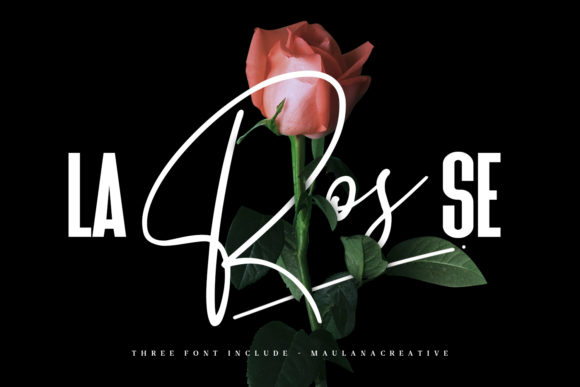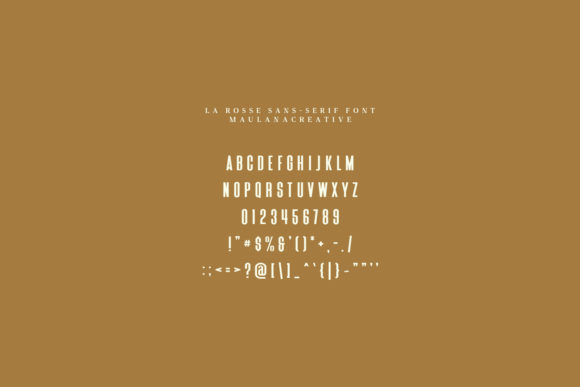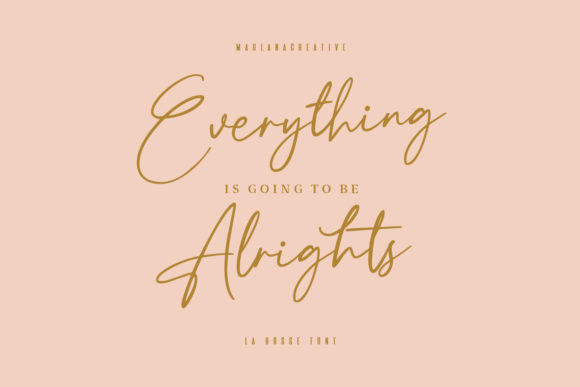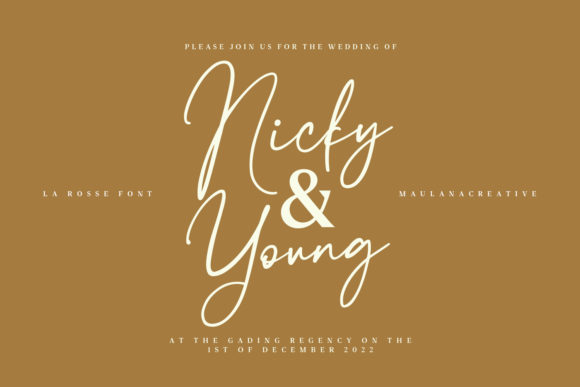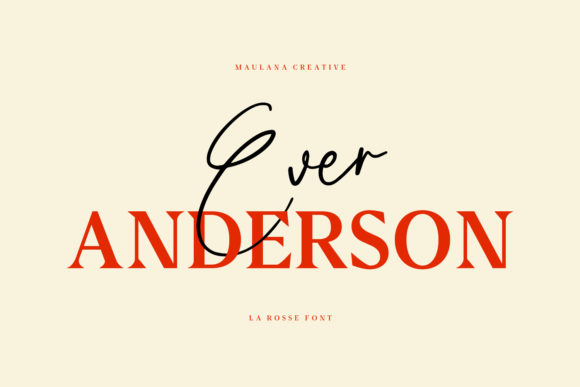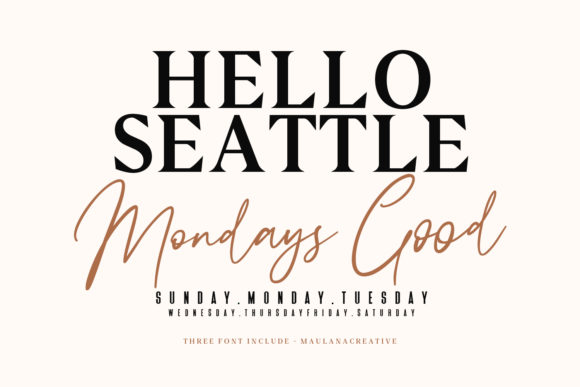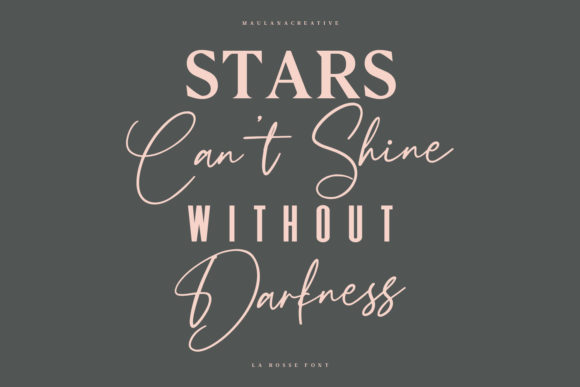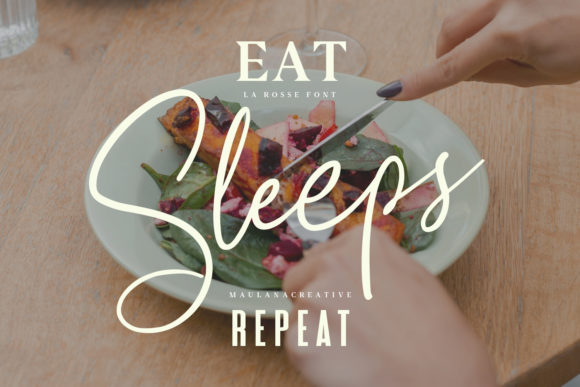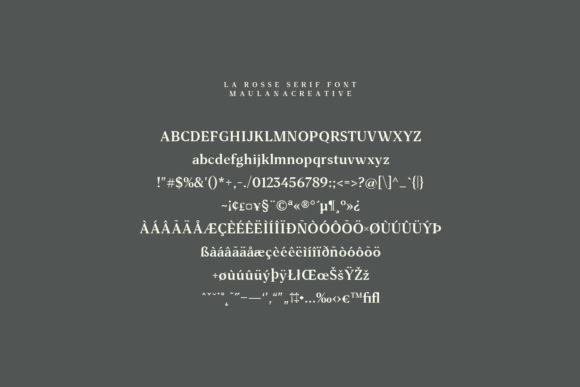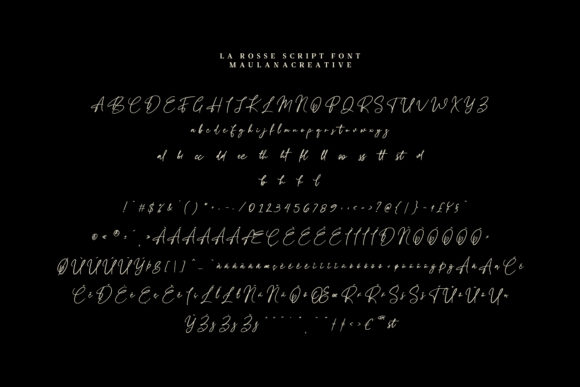
La Rosse Font
About La Rosse Font
La Rosse is elegant and stylish, but also modern. This versatile script font has a wide range of applications ranging from serif to sans serif and is guaranteed to add a classic touch to your next design.